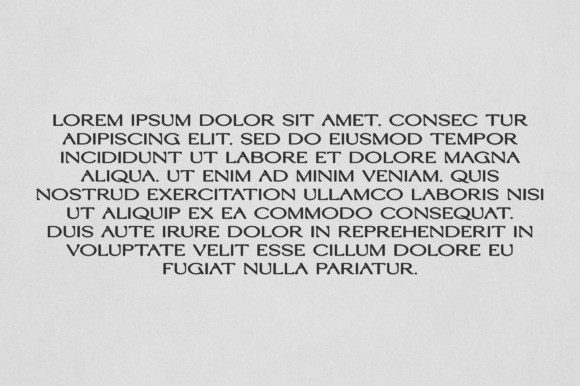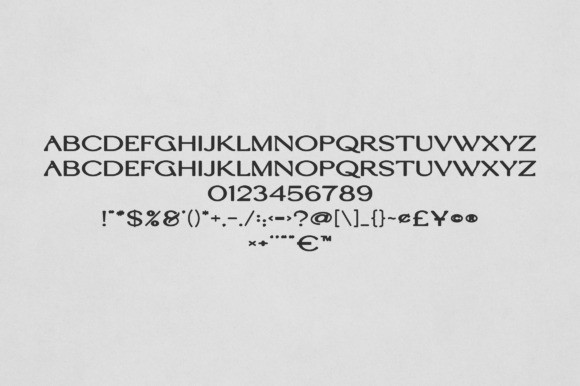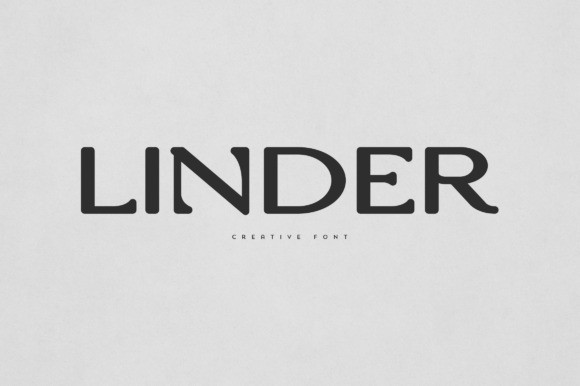
Linder Font
Linder Font is an elegant and versatile display font that will make your typography truly unique! It will enchant every logo, branding, headline, or plain text!